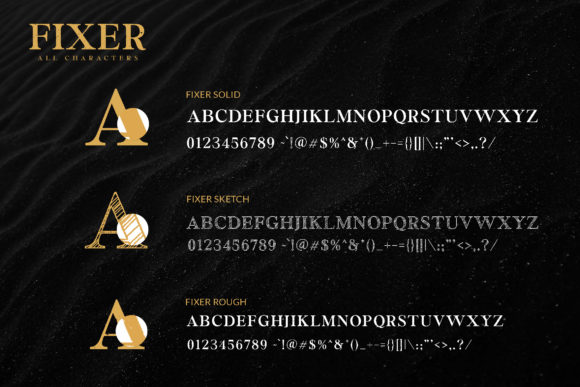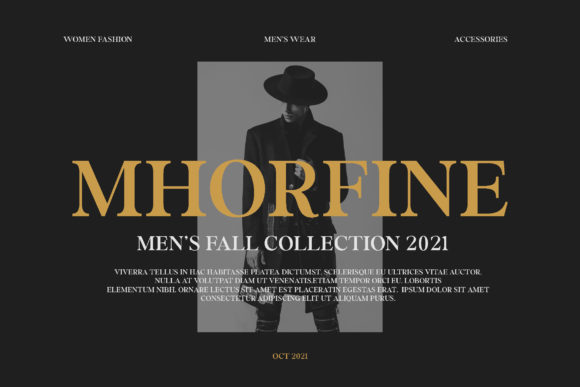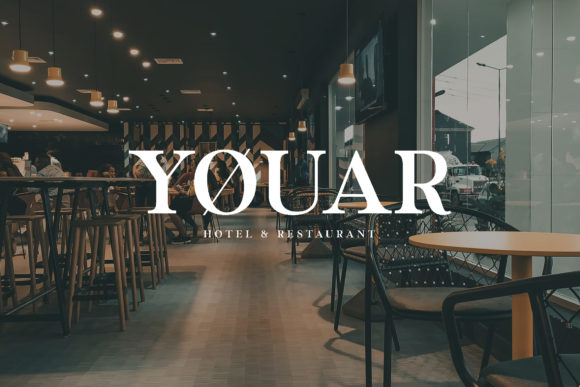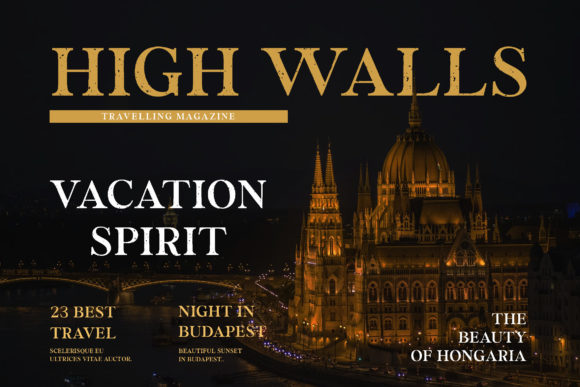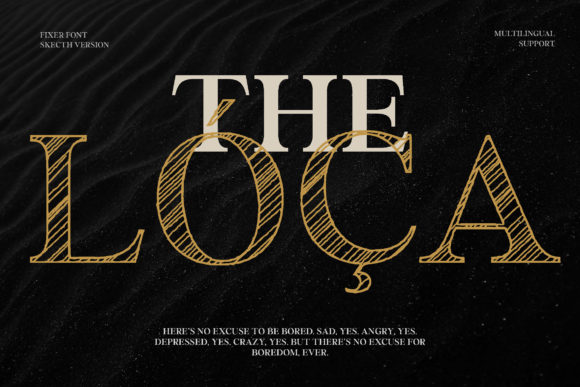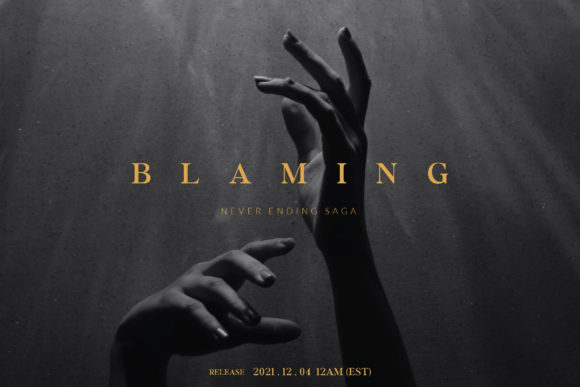
Introduction to Fixer Font
Fixer is a bold and cool serif font.
It will elevate a wide range of crafting ideas, from cards, to branding, labels and much more Add it confidently to your favorite creations and let yourself be amazed by the outcome generated.
Key Features of Fixer Font